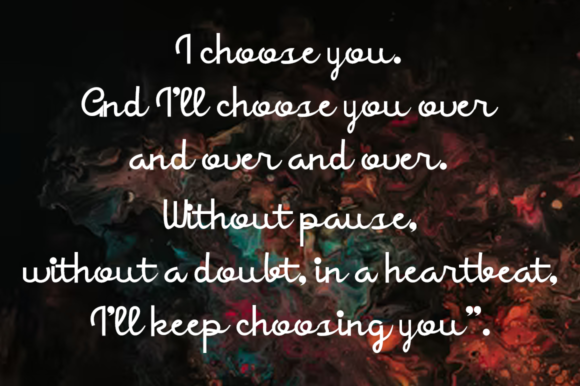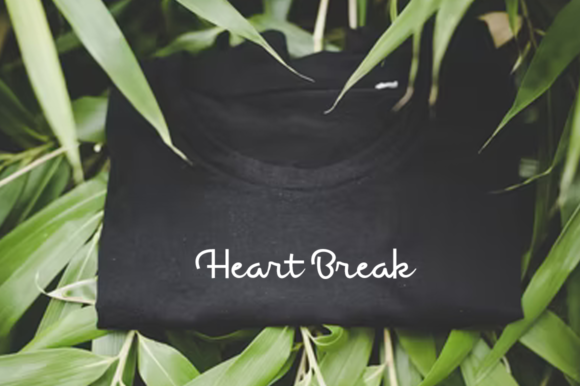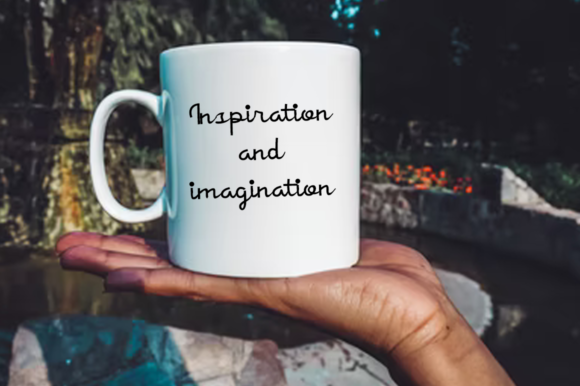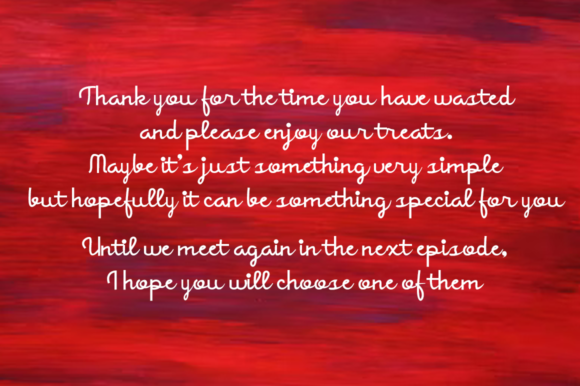
Introducing Angelica Font: Elevate Your Designs with Elegance and Sophistication
Are you a designer or crafter looking for a font that exudes class, elegance, and modernity? Look no further than Angelica Font, a beautiful and refined script font that is perfect for a wide range of design applications. From logos and branding to invitations, stationery, wedding designs, and social media posts, Angelica Font is the perfect choice for anyone seeking to add a touch of sophistication to their work.
What Makes Angelica Font So Special?
Angelica Font is a stunning script font that boasts a classy, elegant, and modern look. Its refined lines and curves make it perfect for designs that require a high level of sophistication, such as luxury brand logos, wedding invitations, and high-end product packaging. The font’s versatility and flexibility make it suitable for a wide range of design applications, from digital media to print materials.
Key Features of Angelica Font
- Beautiful and Refined Design: Angelica Font features a stunning script design that is both elegant and modern.
- Classy and Sophisticated: The font’s refined lines and curves make it perfect for designs that require a high level of sophistication.
- Versatile and Flexible: Angelica Font can be used for a wide range of design applications, from logos and branding to invitations, stationery, and social media posts.
- Easy to Read: Despite its elegant design, Angelica Font is easy to read, making it perfect for body text and captions.
Uses of Angelica Font
Angelica Font is perfect for a wide range of design applications, including:
- Logos and Branding: Create a lasting impression with a custom logo that features Angelica Font.
- Invitations and Stationery: Add a touch of elegance to your invitations, stationery, and greeting cards.
- Wedding Designs: Make your wedding designs truly special with Angelica Font’s elegant and refined script.
- Social Media Posts: Elevate your social media posts with a font that is both modern and sophisticated.
- Product Packaging: Add a touch of luxury to your product packaging with Angelica Font.
Why Choose Angelica Font?
With so many fonts available, why choose Angelica Font? Here are just a few reasons:
- Unique and Distinctive: Angelica Font is a unique and distinctive font that will set your designs apart from the crowd.
- High-Quality Design: The font is designed to the highest standards, ensuring that it looks great in any design application.
| Font Name | Angelica Font |
| Author | Gatra Std |
In conclusion, Angelica Font is a beautiful and refined script font that is perfect for designers and crafters looking to add a touch of elegance and sophistication to their work. With its classy, elegant, and modern design, Angelica Font is suitable for a wide range of design applications, from logos and branding to invitations, stationery, wedding designs, and social media posts. Whether you’re a professional designer or a crafter, Angelica Font is a great choice for anyone seeking to elevate their designs.